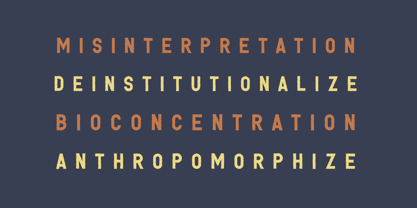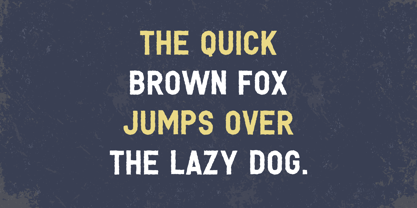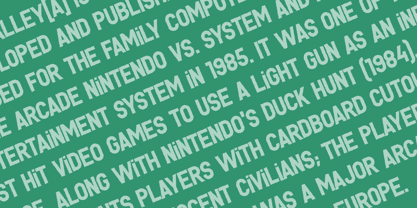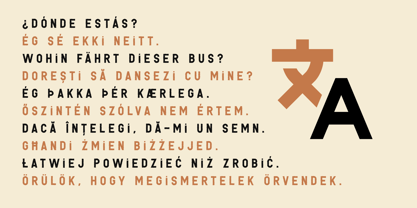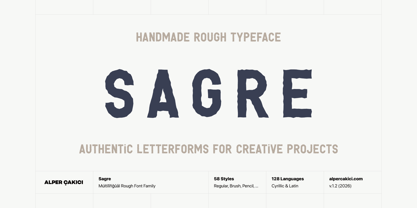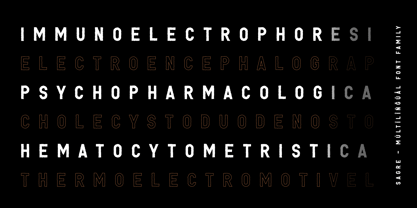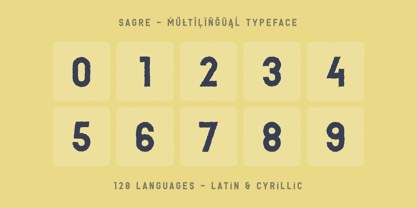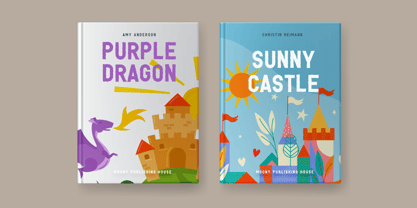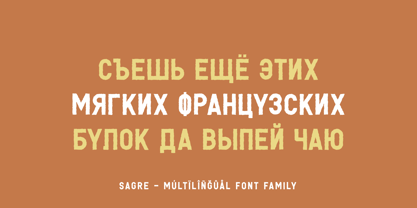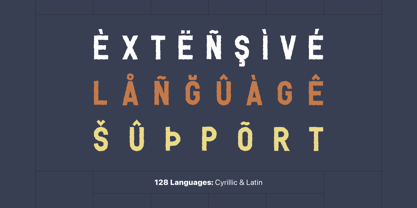
Sagre
The Sagre Font Family was designed by Alper Çakıcı and published by AlperCakici. Sagre contains 58 styles and family package options. More about this family
Sagre Rough Sans Serif Typeface Family Sagre is a bold and expressive rough sans serif typeface designed to bring energy, texture, and personality to modern typography. Built with versatility at its core, Sagre blends clean geometric structure with organic roughness, making it perfect for branding, packaging, editorial layouts, posters, street-inspired visuals, and contemporary digital design. From sharp Angular cuts to smooth Rounded curves, from expressive Brush textures to worn Eroded and Rough finishes, Sagre offers an extensive range of stylistic variations. The Circular and Rounded subfamilies introduce softer proportions, while Inline, Outline, Rimmed, Pencil, and Noise styles add striking decorative impact. With a comprehensive set of styles — including Regular, Italic, Angular, Brush, Eroded, Inline, Outline, Pencil, Rimmed, Rough, Rounded, Circular, and their italic counterparts — Sagre gives designers the creative freedom to mix structure and texture effortlessly. Key Features: Rough & Sans serif styles Angular, Circular & Rounded variations Inline, Outline, Rimmed & Pencil effects Brush, Eroded, Noise & Rough finishes Italics included across the family Multilingual support (128 languages) Whether you’re crafting bold headlines, gritty branding, handcrafted packaging, or experimental layouts, Sagre delivers character without sacrificing clarity.